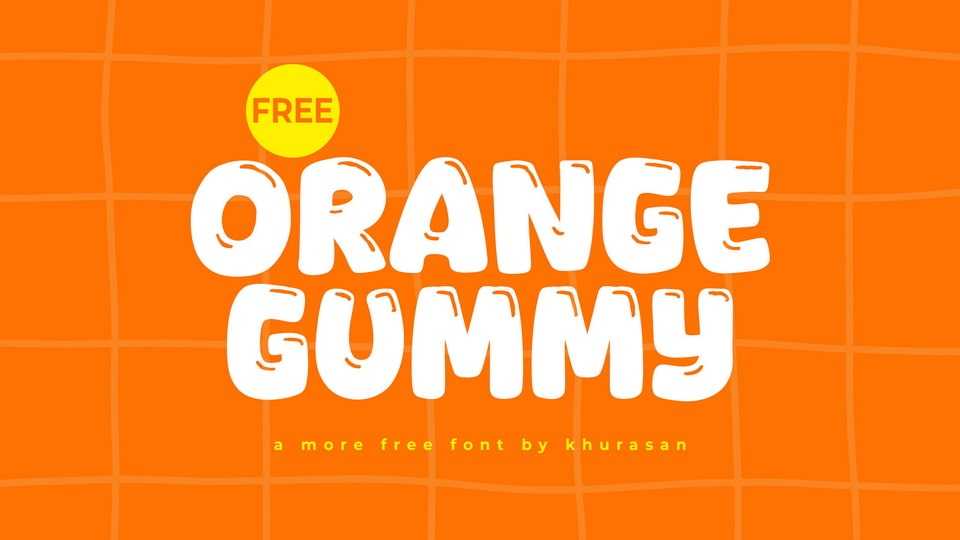
Download Orange Gummy font, a bold and sweet display typeface that looks like it just popped out of a candy wrapper, inspired by gummy textures and handwritten strokes.